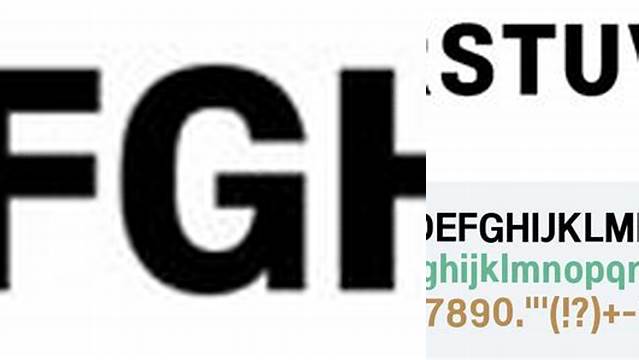
Neogram Extra Bold Condensed font is a striking and versatile typeface that has gained immense popularity in the design world. Its strong, condensed form makes it perfect for headlines, posters, branding, and various other applications where a bold statement is desired. In this comprehensive guide, we'll delve into everything you need to know about Neogram Extra Bold Condensed, including its characteristics, best uses, and, most importantly, how to download it for free.
In today's digital age, the right font can make or break a design. A font isn't just about readability; it's about conveying the right mood and message. When you need something that screams confidence and modernity, Neogram Extra Bold Condensed is your go-to choice. This font is like the superhero of typography – strong, impactful, and ready to save your designs from looking bland. But where do you find this typographic powerhouse? And more importantly, how do you get it without emptying your wallet? Don’t worry, guys, we've got you covered! We're going to dive deep into the world of Neogram Extra Bold Condensed, exploring its best uses, its unique features, and, of course, how you can snag it for free. Whether you're a seasoned designer or just starting, this guide will equip you with all the knowledge you need to make the most of this fantastic font. Think of this as your treasure map to the ultimate typography gem. So, grab your design hats, and let's get started on this font-tastic journey! We'll cover everything from the nitty-gritty details of its design to the creative ways you can use it in your projects. Plus, we'll share some insider tips on where to find the best deals and freebies. By the end of this article, you'll be a Neogram Extra Bold Condensed pro, ready to impress with your typography skills. Let’s jump right in and unlock the potential of this amazing font!
What is Neogram Extra Bold Condensed Font?
Neogram Extra Bold Condensed font is a modern sans-serif typeface characterized by its extra bold weight and condensed letterforms. This combination gives it a powerful and attention-grabbing appearance, making it ideal for designs that need to stand out. Its clean lines and geometric shapes contribute to its contemporary feel, while its boldness ensures high readability even at a distance. This font's compact nature allows you to fit more text into a smaller space without sacrificing impact. It’s like the Swiss Army knife of fonts – versatile, practical, and always ready for action. But what exactly makes Neogram Extra Bold Condensed so special? Well, let’s break it down. The “Extra Bold” part means it’s got some serious weight to it, making your text pop like it’s in 3D. The “Condensed” aspect means the letters are narrower, allowing you to squeeze more words onto a line or into a design without making it look cluttered. Think of it as the font equivalent of packing a suitcase perfectly – everything fits, and it looks great. This font isn't just about aesthetics; it's about functionality too. Its clean, sans-serif design ensures that your message is clear and easy to read, whether it's on a billboard or a business card. The geometric shapes give it a modern, almost futuristic vibe, perfect for brands that want to project innovation and confidence. Plus, its strong presence makes it a fantastic choice for headlines, posters, and anything else that needs to grab attention. In short, Neogram Extra Bold Condensed is a font that means business. It’s the kind of typeface that walks into a room and commands respect. And with its versatility, it’s a valuable addition to any designer’s toolkit. So, now that we know what makes it tick, let’s explore how you can use it to its full potential.
Key Characteristics of Neogram Extra Bold Condensed
To truly appreciate Neogram Extra Bold Condensed font, let's dive into its key characteristics:
- Extra Bold Weight: This is the most defining feature, providing a strong, impactful presence.
- Condensed Letterforms: The narrow letterforms allow for efficient use of space, making it great for headlines and tight layouts.
- Sans-Serif Design: The absence of serifs gives it a clean, modern, and approachable look.
- Geometric Shapes: The use of geometric forms contributes to its contemporary and structured feel.
- High Readability: Despite its boldness and condensed nature, the font remains highly readable, even at smaller sizes.
When you're choosing a font, it's like picking the right tool for a job. And Neogram Extra Bold Condensed? It’s like that heavy-duty, multi-purpose tool you know you can always rely on. Its extra bold weight is the first thing you notice – it’s like the font is shouting (in a good way!) for attention. This makes it perfect for headlines and titles that need to pop. Imagine it on a movie poster or a book cover; it’s going to grab your eye from across the room. But it’s not just about being loud; it’s about being clear. The condensed letterforms are a game-changer. They allow you to pack more punch into a smaller space. Think of designing a brochure or a website where space is at a premium. This font lets you squeeze in more text without making it look cramped or messy. It’s like having a superpower for text fitting! The sans-serif design is another crucial element. It gives the font a clean, modern vibe that’s perfect for contemporary designs. Sans-serif fonts are known for their readability, and Neogram Extra Bold Condensed is no exception. It’s easy on the eyes, even when it’s bold and condensed. The geometric shapes add to its structured and professional feel. Each letter is carefully crafted, giving the font a sense of precision and balance. This makes it a great choice for branding and corporate materials where you want to project a sense of reliability and competence. And speaking of readability, that’s where this font truly shines. Despite its boldness and condensed form, it remains highly legible. This means you can use it in a variety of contexts, from large headlines to smaller body text, without sacrificing clarity. It’s like having the best of both worlds – a font that’s both eye-catching and easy to read. So, when you’re looking for a font that’s strong, modern, and versatile, Neogram Extra Bold Condensed ticks all the boxes. It’s a font that commands attention while staying true to the principles of good design. Now that we’ve explored its key characteristics, let’s look at where you can put this font to work.
Best Uses for Neogram Extra Bold Condensed Font
Neogram Extra Bold Condensed font excels in various design applications. Here are some of the best uses:
- Headlines and Titles: Its bold nature makes it perfect for grabbing attention in headlines and titles.
- Posters and Flyers: The font's strong presence ensures your message stands out on promotional materials.
- Branding and Logos: Its modern and impactful look can enhance brand identity.
- Website Design: Use it for headings and call-to-action buttons to guide user attention.
- Packaging Design: Its condensed form is ideal for fitting text on packaging labels.
Alright, let's talk about where this font really shines. Neogram Extra Bold Condensed isn't just a pretty face; it's a workhorse that can handle a variety of design tasks. Think of it as your trusty sidekick, ready to jump in and make your projects look amazing. First up, headlines and titles. This is where Neogram Extra Bold Condensed truly struts its stuff. Its bold nature is like a megaphone for your message, ensuring that your headlines grab attention immediately. Whether it's a website heading, a magazine title, or a poster tagline, this font makes sure you're heard loud and clear. It's like the headliner at a concert – it sets the tone and gets everyone pumped up. Next, let's talk posters and flyers. If you're trying to promote an event or a product, you need a font that can cut through the noise and get noticed. Neogram Extra Bold Condensed does exactly that. Its strong presence ensures that your message stands out, even in a crowded visual environment. It's like the neon sign in a bustling city – impossible to ignore. Branding and logos are another area where this font excels. Your brand identity is crucial, and the right typography can make all the difference. Neogram Extra Bold Condensed's modern and impactful look can enhance your brand's image, conveying confidence, strength, and innovation. It's like the power suit of fonts – it makes you look professional and authoritative. Websites are a prime playground for this font. In the digital world, you have seconds to capture a visitor's attention. Using Neogram Extra Bold Condensed for headings and call-to-action buttons can guide users and make your site more engaging. It's like having a friendly guide who points you in the right direction. And let's not forget packaging design. Space is often limited on packaging labels, so you need a font that's both legible and space-efficient. Neogram Extra Bold Condensed's condensed form fits the bill perfectly. It's like Tetris for typography – you can fit more text into less space without sacrificing readability. Overall, Neogram Extra Bold Condensed is a versatile font that can elevate a wide range of design projects. It’s like having a Swiss Army knife in your font library – always ready for action. So, now that we know where it shines, let's get to the million-dollar question: how do you get your hands on it?
So, there you have it, folks! We've taken a deep dive into the world of Neogram Extra Bold Condensed, exploring its strengths, its best uses, and, most importantly, how to get it for free. This font is like a secret weapon for designers – it's powerful, versatile, and ready to help you create stunning visuals. We started by understanding what Neogram Extra Bold Condensed is all about. We learned that it's a modern sans-serif typeface with an extra bold weight and condensed letterforms, making it perfect for grabbing attention and fitting more text into a smaller space. It’s like the superhero of fonts, always ready to save the day! Then, we explored its key characteristics, from its bold weight to its geometric shapes and high readability. We discovered that it's not just a pretty face; it's a font that's designed for impact and clarity. It’s like the athlete who's both strong and graceful. We also talked about the best uses for Neogram Extra Bold Condensed, from headlines and posters to branding and website design. We saw how it can elevate a wide range of projects, making your message stand out and your designs look professional. It’s like the ultimate multi-tool for designers! Next, we embarked on the treasure hunt for free downloads. We explored various resources, from font foundries and free font websites to Creative Market and font bundles. We learned that finding free fonts requires a bit of searching, but it's totally doable. It's like going on an adventure – you never know what gems you might discover! And finally, we discussed tips for using Neogram Extra Bold Condensed effectively. We covered pairing, hierarchy, spacing, color, and context, giving you the tools you need to make the most of this font. It’s like learning the secret ingredients to a delicious recipe. So, with all this knowledge in your arsenal, you're ready to unleash the power of Neogram Extra Bold Condensed in your designs. Whether you're a seasoned pro or just starting out, this font is sure to become a valuable addition to your toolkit. It’s like adding a new superpower to your design abilities! Remember, design is all about creativity and experimentation. So, don't be afraid to play around with Neogram Extra Bold Condensed and see what you can create. And most importantly, have fun! Because at the end of the day, design should be a joyful and rewarding experience. Thanks for joining us on this font-tastic journey! We hope you've learned a lot and are excited to put your new knowledge into practice. Now go out there and make some amazing designs!